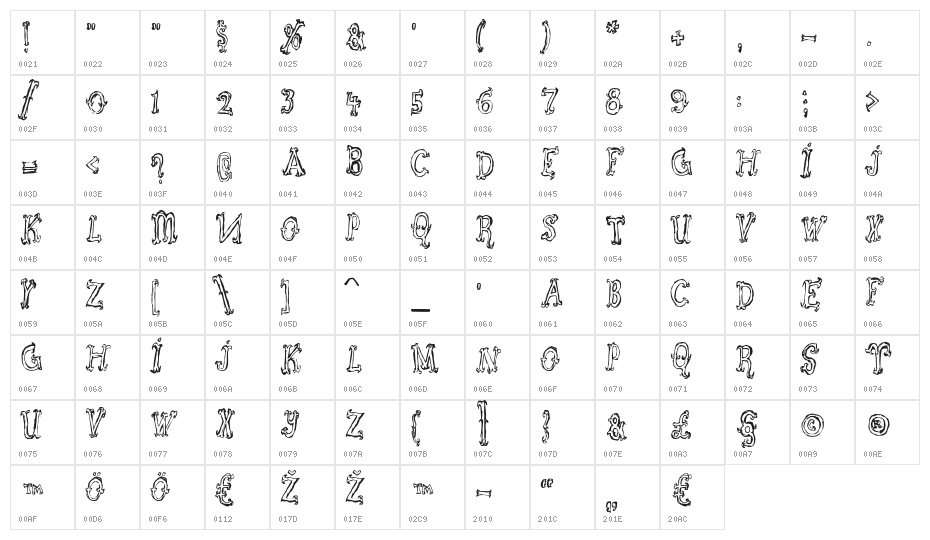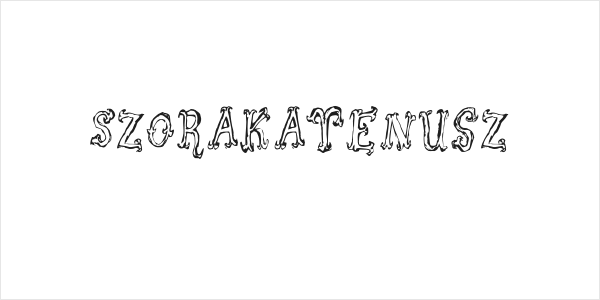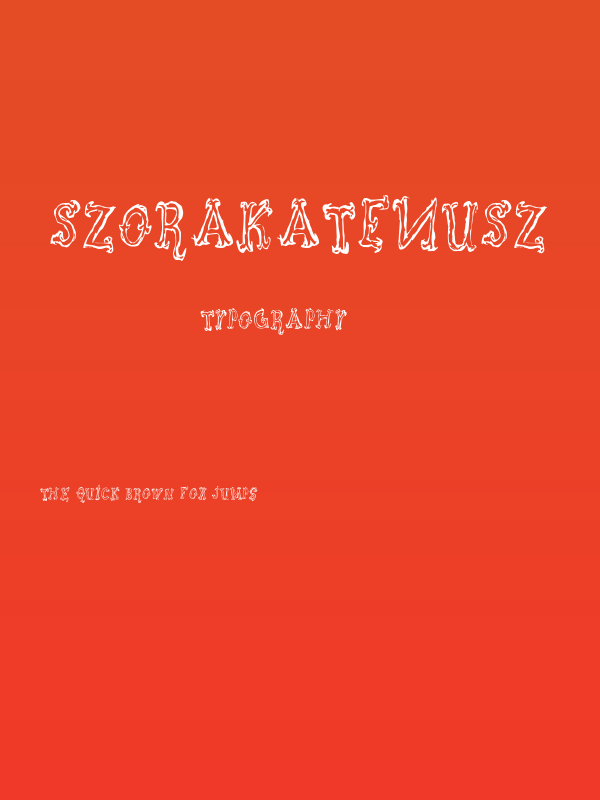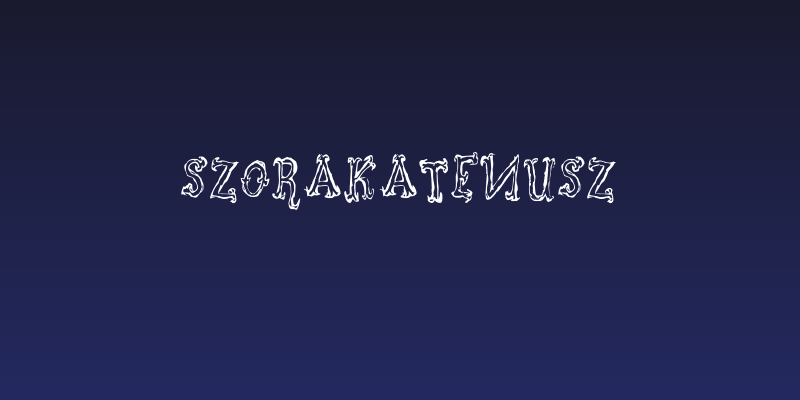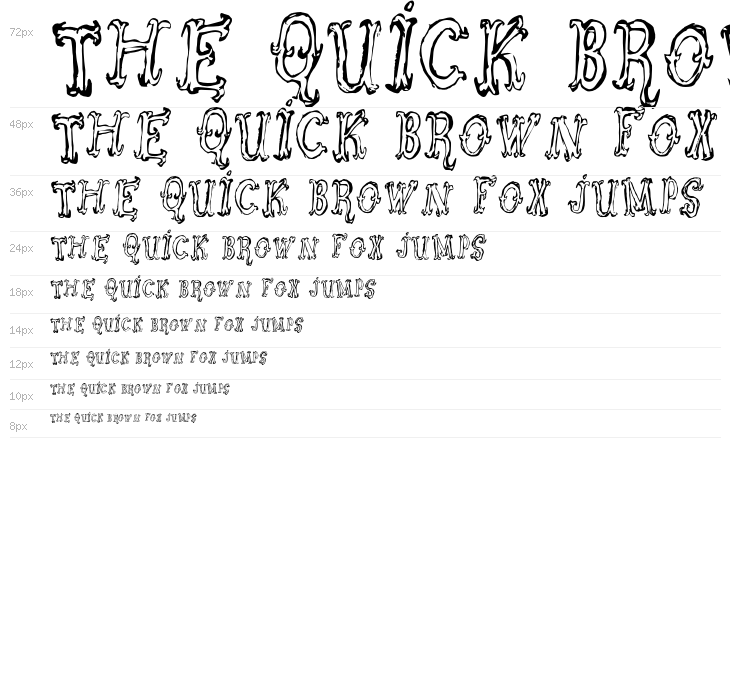
Szorakatenusz Font
Szorakatenusz Description
This font features an ornate and decorative style with intricate detailing on each character. The letters have a whimsical, almost fantasy-like appearance, characterized by exaggerated serifs and flourishes that give it a unique, artistic flair. The strokes are uneven, with varying thickness that adds to the hand-drawn, vintage aesthetic. The overall design is bold and eye-catching, making it suitable for creative and expressive projects. The numbers and special characters maintain the same decorative elements, ensuring consistency across all glyphs.
| Proposed Projects | Ideal for fantasy-themed designs, book covers, posters, and artistic branding. |